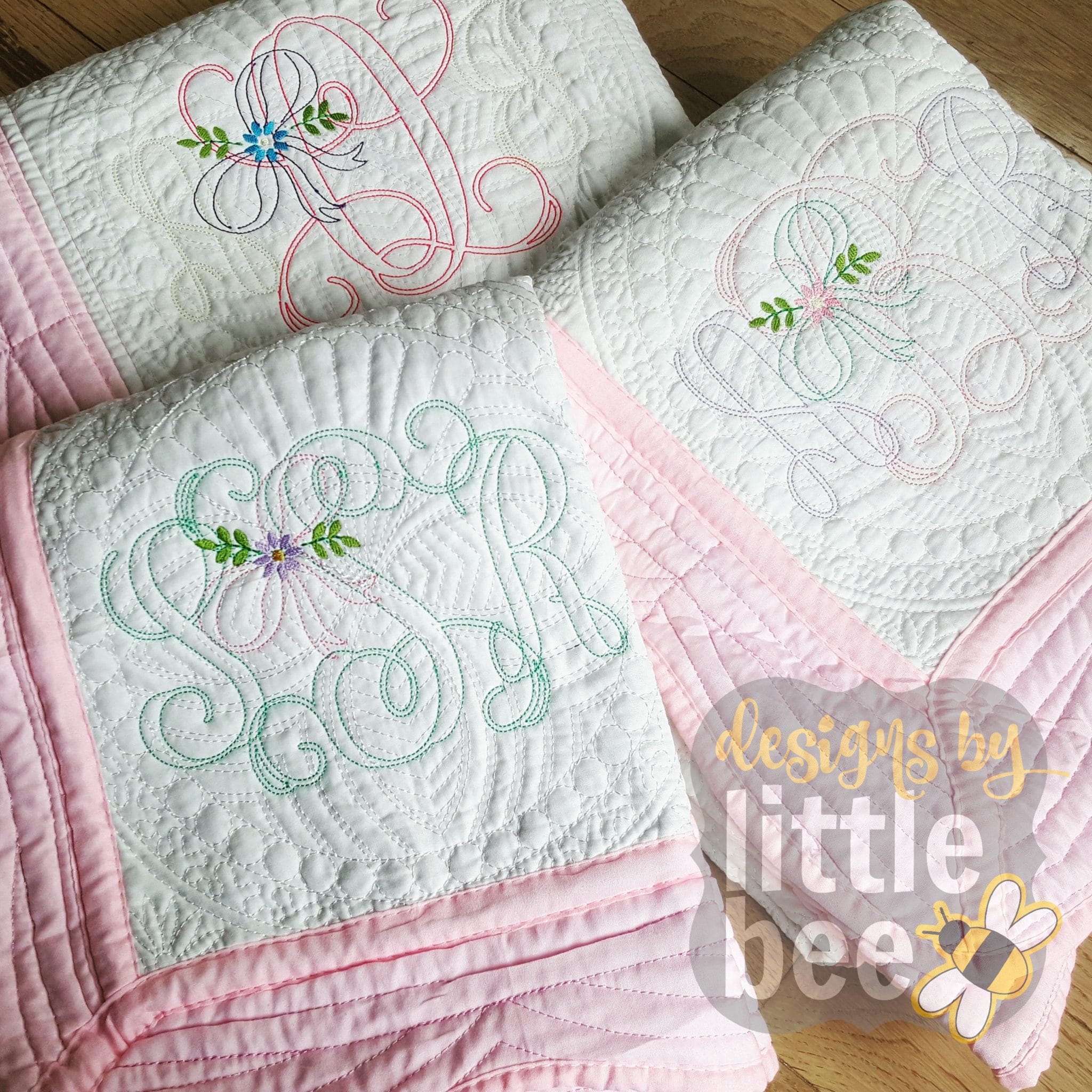
Stunning Olivia monogram font packs a lot of punch in a simple bean stitch!
Each center letter includes a bow and flower detail as shown. Side letters are uniform.